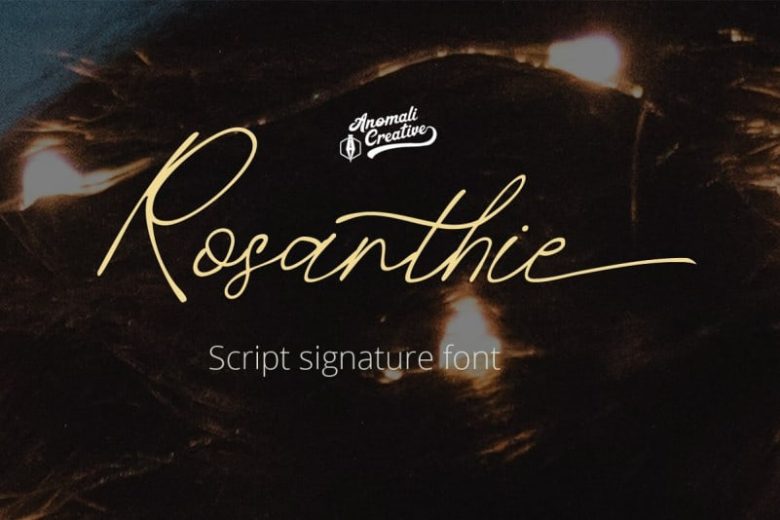
Rosanthie Font
Rosanthie Script Font is a new signature script typeface manufactured by Anomali Creatype. It’s ideal for logos, handwritten quotes, product packaging, merchandise, social media, greeting cards & much more. It contains a full set of upper & lowercase letters, a large range of punctuation, numerals, and multilingual support.